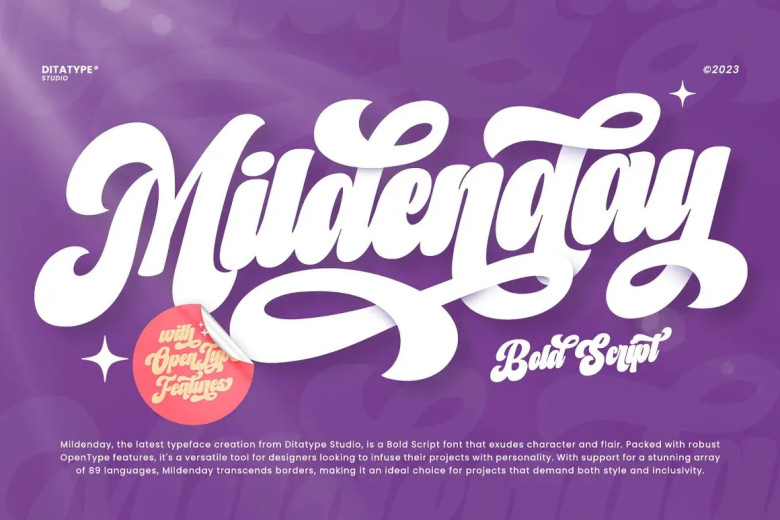
Mildenday Font
Mildenday is an elegant and striking Bold script font, that blends elegance with boldness perfectly. The heavy weight ensures your words make an impactful and lasting statement while remaining legible.
Additionally, its swing endings create fluidity and movement for an added sense of flow and movement within text, creating unique personality within each text that standouts from others while Mildenday’s minimalist design lends it a contemporary and balanced appearance.
Mildenday Bold Script Font